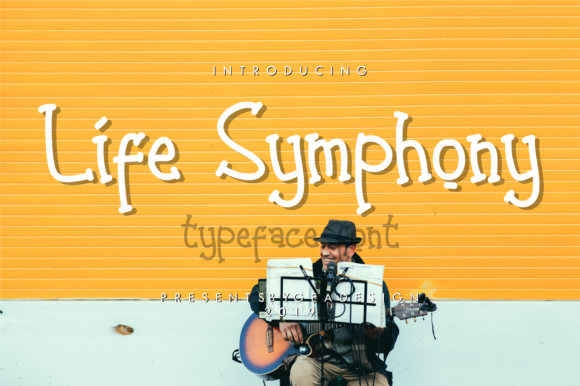
Introducing Life Symphony Font, an Exquisite Serif Typeface That Will Transform Your Designs.
Welcome to the world of Life Symphony Font, a classic serif font family that emanates elegance and warmth. Born from the creative studio of geadesign, Life Symphony is a mesmerizing typeface that combines traditional beauty with a touch of whimsy, making it a versatile choice for designers of all levels.
Life Symphony stands out with its simple yet captivating design, featuring delicate curves and subtly playful letterforms. Each character is carefully crafted to exude a sense of timeless charm, while maintaining a modern aesthetic. The result is a font that effortlessly adds a touch of refinement to any project, from invitations and greeting cards to branding and web design.
Embrace the Elegance: Life Symphony's serif design brings a touch of timeless sophistication to your creations. The graceful curves and delicate details create a visually stunning impact that captivates your audience from the very first glance.
Unleash Your Creativity: With Life Symphony, your imagination knows no bounds. Its versatility allows you to experiment with different styles and themes, whether you seek a classic, vintage, or contemporary look. Its extensive character set and range of stylistic alternates provide endless possibilities for customization, ensuring your designs stand out from the crowd.
Create a Memorable Impression: Life Symphony has the power to transform ordinary text into a captivating visual masterpiece. Its intrinsic charm and elegance make it an ideal choice for creating logos, business cards, posters, and other marketing materials that demand attention. Elevate your branding efforts and leave a lasting impression on your audience with Life Symphony's timeless beauty.
Experience the Joy of Design: Life Symphony is a delight to work with. Its well-balanced proportions and consistent letter spacing ensure effortless readability, while its generous x-height adds an airy feel to your text. Dive into the world of Life Symphony and discover the joy of creating designs that resonate with your audience.